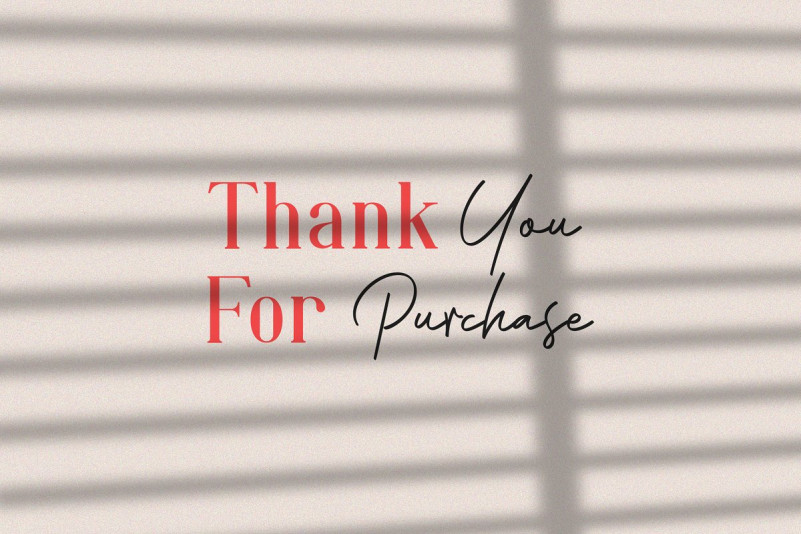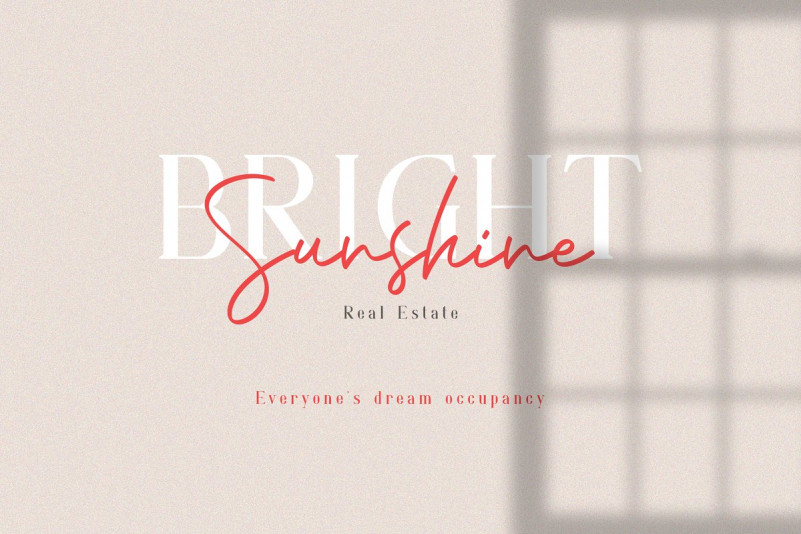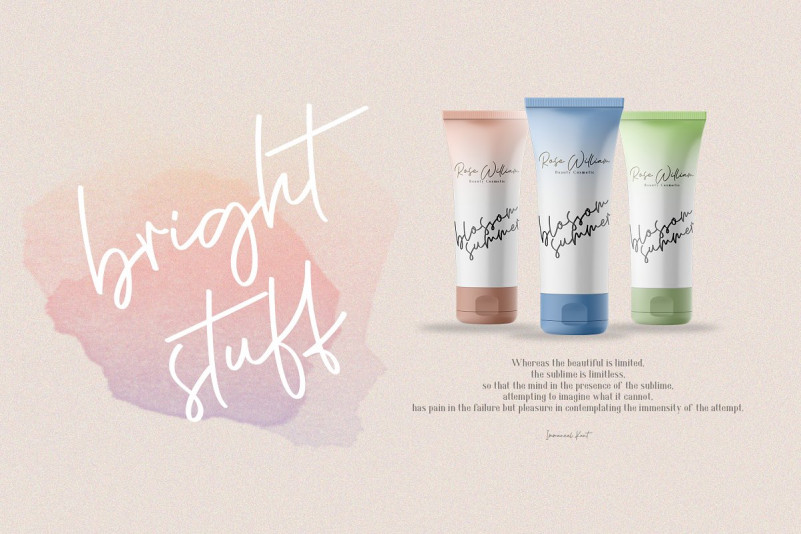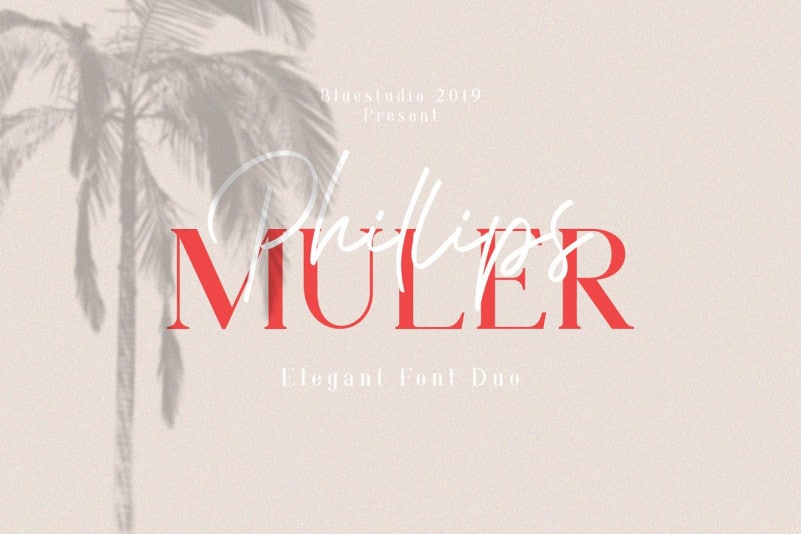
Phillips Muler Font Duo
Are you looking for an appropriate typeface for your shops concept? Introducing Phillips Muler Font Duo! This is a beautiful font duo that combines two trends (sleek serif caps and signature font) into one gorgeous package. It’s designed and shared by Bluestudio. It’s a font duo that we created for all your design project needs. Phillips Muler is a matching font duo, consisting serif font styles and paired with signature fonts that we make like hand scratches, so that it looks natural. Phillips Muler Script is perfect for all types of your business projects such as: logo design, business cards, greeting cards, magazines, newspapers, social media design, watermarks and more.